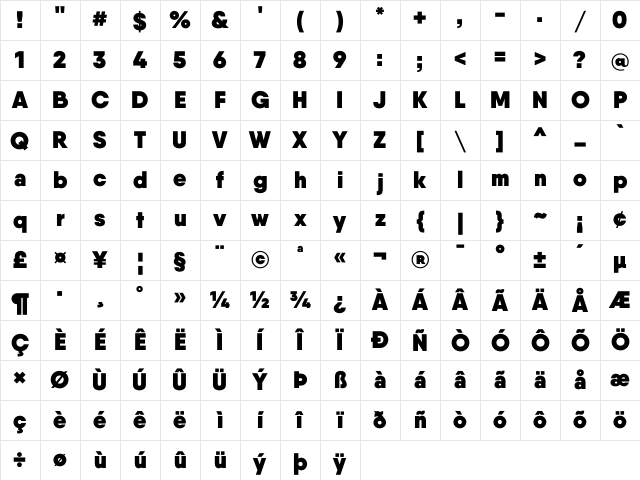
Qanelas Heavy
Foundry: Radomir Tinkov
Designer: Radomir Tinkov
Design Context for Qanelas
Qanelas is a composed and adaptable typeface that performs quietly and consistently across a wide range of design contexts.
Pro Tip: Use Qanelas in both headline and body roles to test its range before committing to a single application.